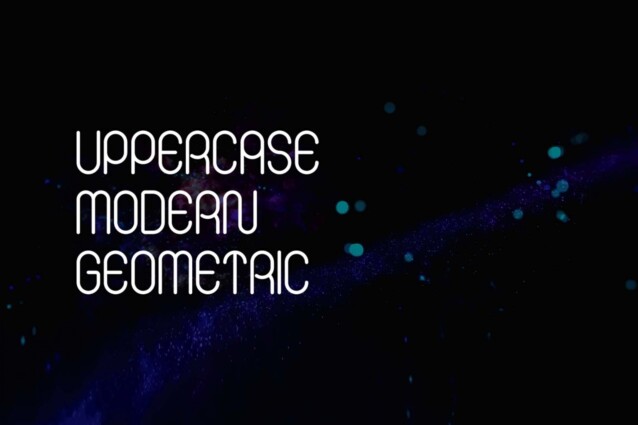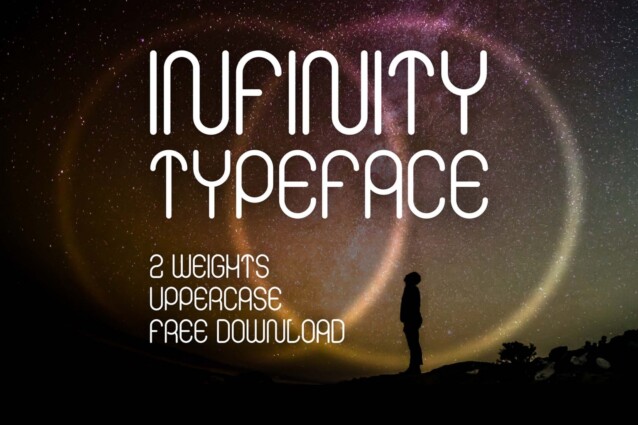
Infinity Font
Infinity Font is a versatile, modern, and classy sans serif font. Take the path least traveled with Infinity and use it for movie posters related to space, tickets for an unusual event, notebook covers, and branding designs, where each text or logo will present an eye-catching futuristic project. And although it may not offer limitless options, it gives you infinite curves with each character, bringing a modern display to the table. This Infinity download includes 2 weights, light and regular, that can be mixed within a project and that are free for commercial and non-commercial use.